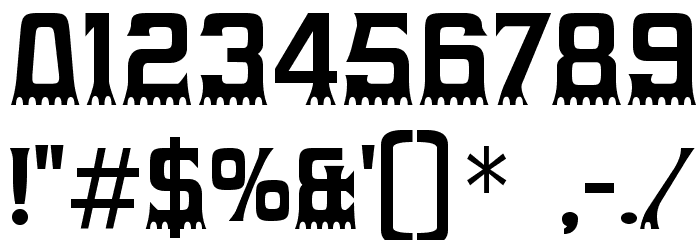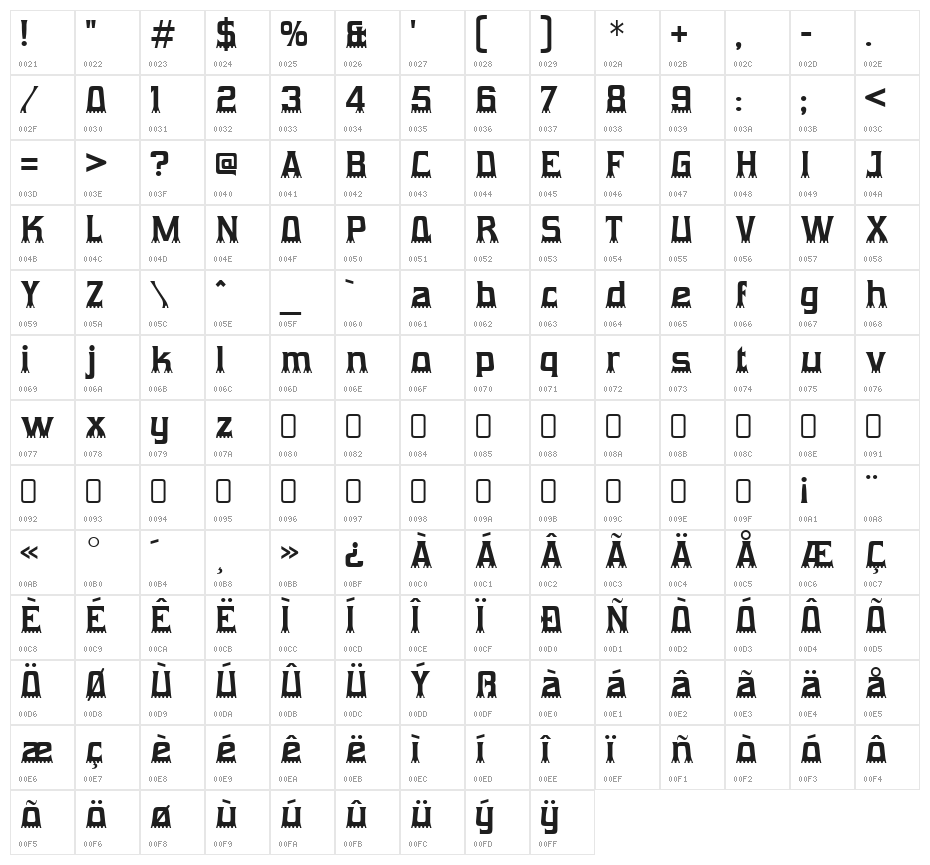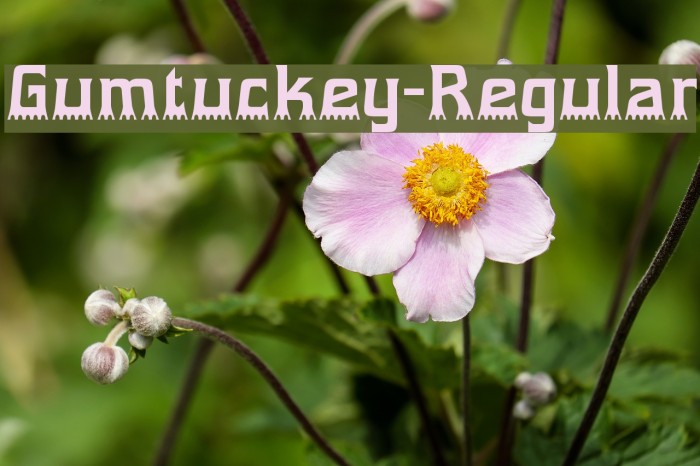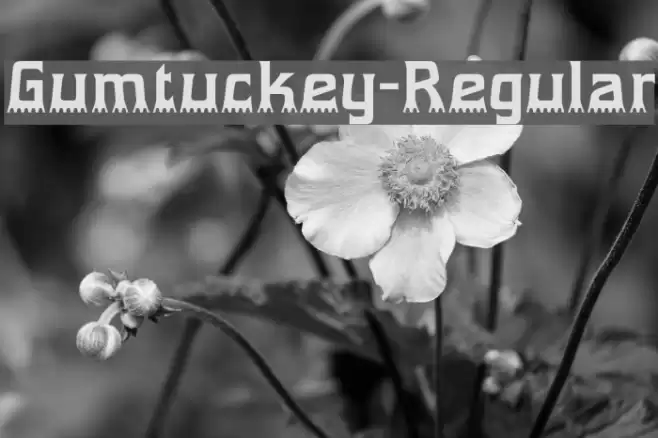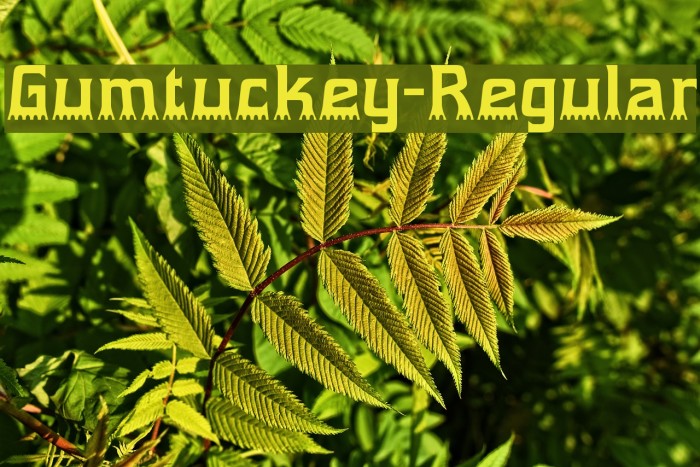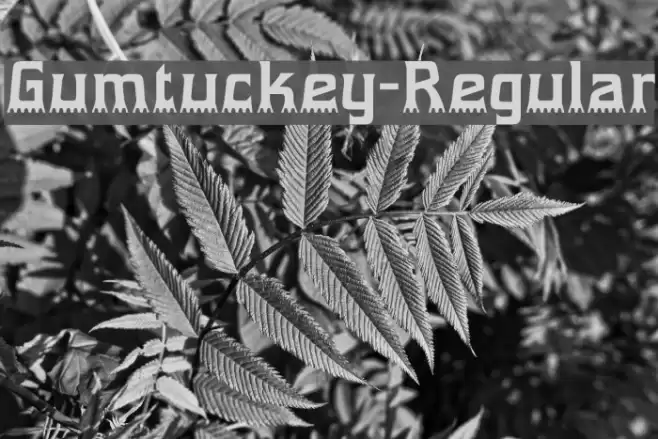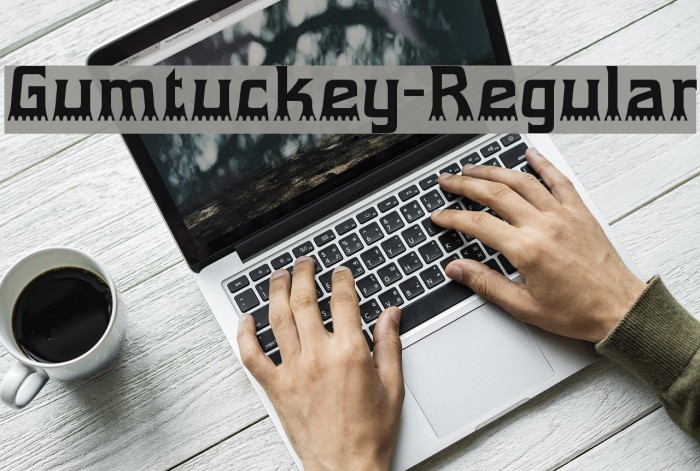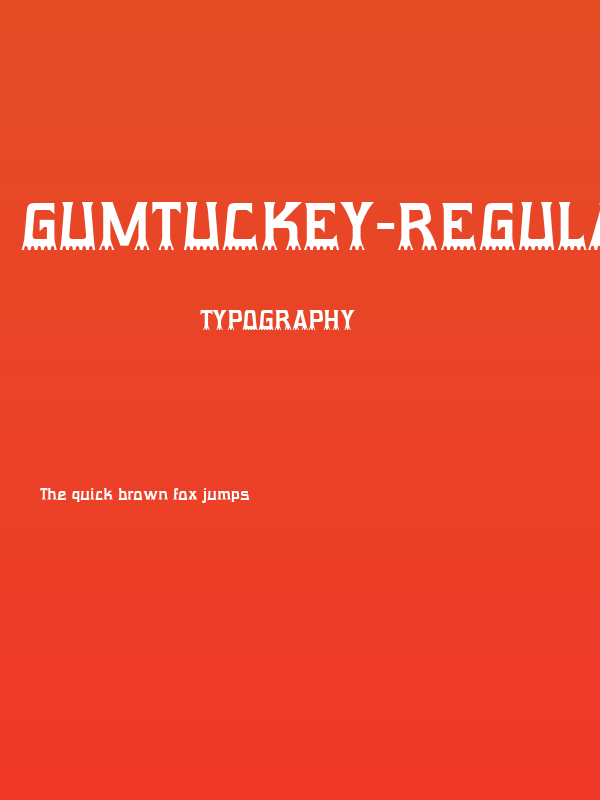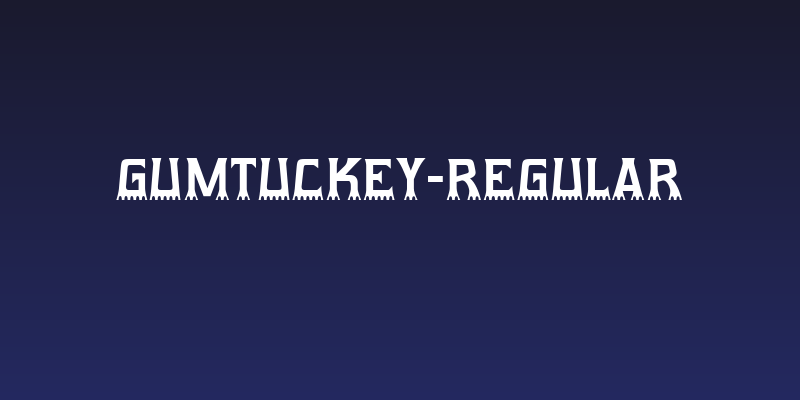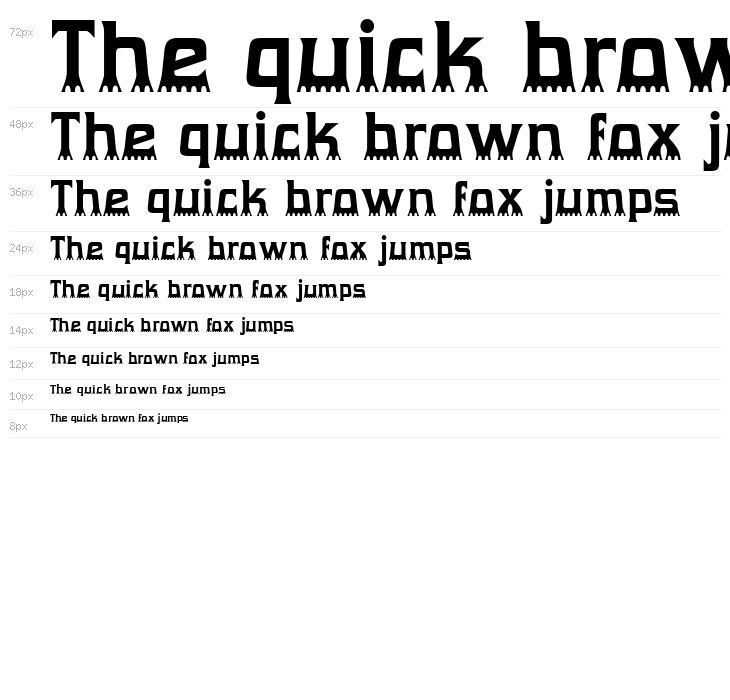
Gumtuckey-Regular Font
Gumtuckey-Regular Description
This font features a bold and distinctive style with unique, decorative elements at the base of each character, resembling a fringe or teeth-like pattern. The uppercase and lowercase letters maintain a consistent width, while the numbers and special characters follow the same design ethos, ensuring uniformity across all glyphs. The font's playful yet structured appearance makes it stand out, with a strong presence that commands attention. Its bold strokes and unique design elements make it suitable for creative and eye-catching projects.
| Proposed Projects | Ideal for posters, branding, logos, and any project requiring a bold, eye-catching typeface. |